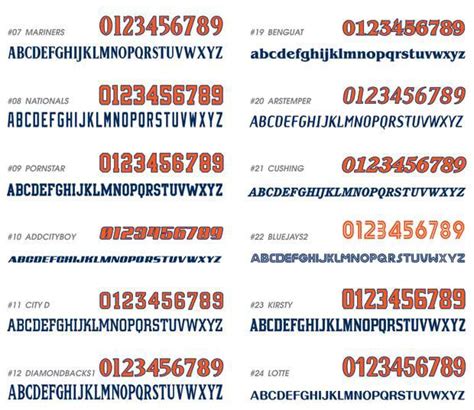
Unveiling The Font Secrets Of Baseball Jerseys
Unveiling the Font Secrets of Baseball Jerseys
Hey guys! Ever been watching a baseball game and found yourself admiring the jerseys, maybe even wondering about the fonts? Well, you’re not alone! It’s a fascinating detail, and it’s something that can really set a team’s identity apart. So, let’s dive into the world of baseball jersey fonts ! We’ll explore what fonts are commonly used, the history behind them, and how they contribute to a team’s overall brand. Get ready to have your baseball viewing experience changed, as you start recognizing the subtle nuances of each font.
The Most Popular Fonts You’ll See on the Diamond
Alright, let’s get down to the nitty-gritty and talk about the fonts you’re most likely to see when you’re watching a game, or maybe even shopping for a new jersey. There’s a wide range, but some fonts are real crowd-pleasers , popping up on jerseys across different teams and leagues. Keep in mind that while there is a general idea of what a font is, teams can customize it, changing some features to fit their style. This helps them to have a unique identity. So, here are some of the most popular fonts used on baseball jerseys.
One of the most classic and recognizable is Varsity fonts . These fonts often have a strong, blocky appearance and a slightly slanted or rounded design. They’re all about that traditional, collegiate feel, perfect for conveying a sense of teamwork and tradition. Think about the iconic jerseys of the New York Yankees or the Boston Red Sox - they often use a variation of this font style. The simple, bold nature of Varsity fonts makes them incredibly legible from a distance, which is, of course, a huge plus for fans in the stands and TV viewers alike. They also tend to be very versatile, working well with various color schemes and jersey designs. Guys, this font style has stood the test of time, so it’s a solid choice for any team aiming for a classic look.
Next up, we’ve got Script fonts . These fonts bring a touch of elegance and flair to the jerseys. With their flowing, cursive appearance, script fonts often lend a sense of history and sophistication. They’re like the fancy penmanship of the baseball world. The St. Louis Cardinals, for instance, are famous for their elegant script font, which has become a symbol of their franchise. Script fonts can vary widely, from more elaborate and decorative styles to simpler, more streamlined versions. It’s a great choice if a team wants to convey a sense of heritage or a unique brand identity, but it can sometimes be harder to read than a bold block font. So, it’s all about finding the right balance between style and functionality.
Then there are Block fonts . These are very similar to Varsity fonts, with a strong, clean appearance. The main difference is the design details. Block fonts come in many variations. They can be very simple and straightforward or include subtle design elements. They are like the workhorses of the font world – reliable, adaptable, and easy to read. You’ll find them on jerseys across all leagues, from major league teams to your local little league. Block fonts are known for their simplicity and clear readability. They’re super easy to see from far away, which is pretty important when you are trying to read a name on a jersey. They give off a vibe of confidence and strength, which makes it perfect for a competitive sport like baseball. They are perfect for teams that value clarity and a modern aesthetic.
Lastly, let’s not forget Custom Fonts . Many teams, especially in the modern era, opt for fonts that are specifically designed for them. These custom fonts are a key part of their branding strategy. It’s a way to create a unique identity, something that sets them apart from other teams. These fonts can range from modern and edgy to vintage-inspired, depending on the team’s goals. When a team uses a custom font, it’s not just about the letters – it’s about the entire visual experience. From the shape of the letters to the spacing and overall design, every detail is carefully considered. The team wants to give off a specific mood, to create a bond with their fans. It’s a fantastic way to convey the team’s personality and values. So, keep an eye out for these fonts – they’re a cool way to see a team’s creativity.
The History Behind Baseball Jersey Fonts
Okay, now let’s talk about the history of these fonts! The fonts on baseball jerseys didn’t just appear overnight; they have a rich history that mirrors the evolution of the sport itself. The choices in typography have reflected the changes in style, branding, and technology over the years. This can give you an insight into how teams have changed throughout history, with older fonts from earlier teams giving you a sense of nostalgia.
In the early days of baseball, uniforms were relatively simple. The fonts were often simple and practical, focused on legibility rather than flash. As the sport grew in popularity, teams started to see the potential of branding. They began to use fonts as a way to establish their identity. Think about how the evolution of printing technology and textile manufacturing influenced font choices. Before advanced printing, it was easier to create blocky fonts. The creation of specialized fonts for baseball teams only came later with the development of the technology. Varsity fonts and block fonts were easy to apply to the jerseys, which made them popular. These fonts were all about function, ensuring that the names and numbers were clear and visible on the field. The rise of the script fonts brought an element of elegance and sophistication to the uniforms. These fonts weren’t just about functionality – they were about style. They added personality to the jerseys. The changes also reflect the broader trends in design and culture. As design aesthetics evolved, baseball jerseys followed suit, incorporating modern fonts and innovative designs. This is why you see so many different styles.
As the sports industry grew, the competition between teams and leagues increased, and teams had to become more creative. This led to custom fonts. So, the history of baseball jersey fonts is a story of evolution. It reflects the sport’s growth and the constant efforts to make teams and players stand out. The fonts themselves are a reflection of what was happening in society at the time. So, next time you are watching a game, you can think of the evolution of the font style.
How Fonts Contribute to a Team’s Identity
Now, let’s talk about how the fonts themselves play a significant role in creating a team’s brand identity. It’s not just about what the words say; it’s about how they look and feel. The font is a key component of a team’s visual identity, and it can heavily influence how fans perceive and feel about the team. The choices a team makes when it comes to fonts are very deliberate. Here’s how fonts contribute to a team’s identity!
Creating a Visual Identity : Fonts help shape a team’s overall look. The font can set the tone – is the team traditional, modern, or something else entirely? A team can convey a sense of history or show a bold, new attitude. It’s a way for a team to say,